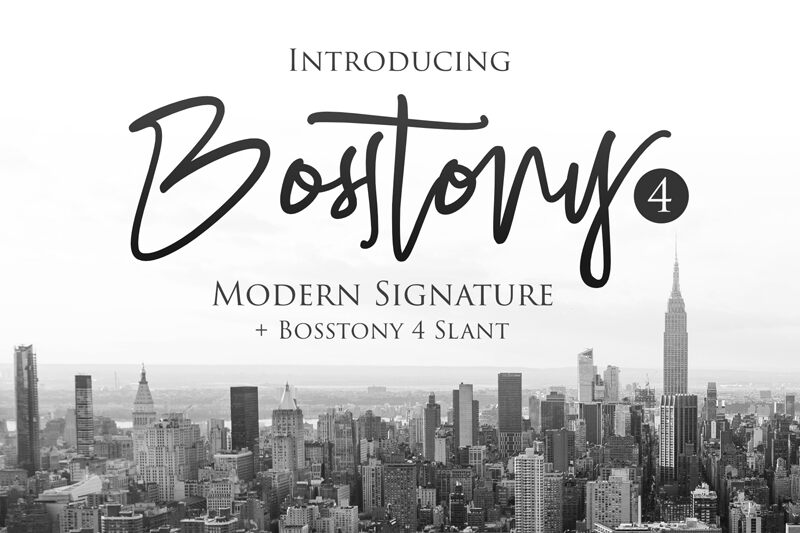
Bosstony 4
Bosstony 4 font by DumadiStyle is a free handwritten font with casual elegance and expressive flair. It has a smooth flow with each line and curve just as chic as the last. A modern script style font, it also offers a contemporary vibe in both its overall look and individual letters.
It can be used for signature design, invitation card design, event promotion designs, advertising campaigns, branding projects, website designs projects ideas, wedding cards, typography posters, greeting cards products, T-shirts & other apparel designs.